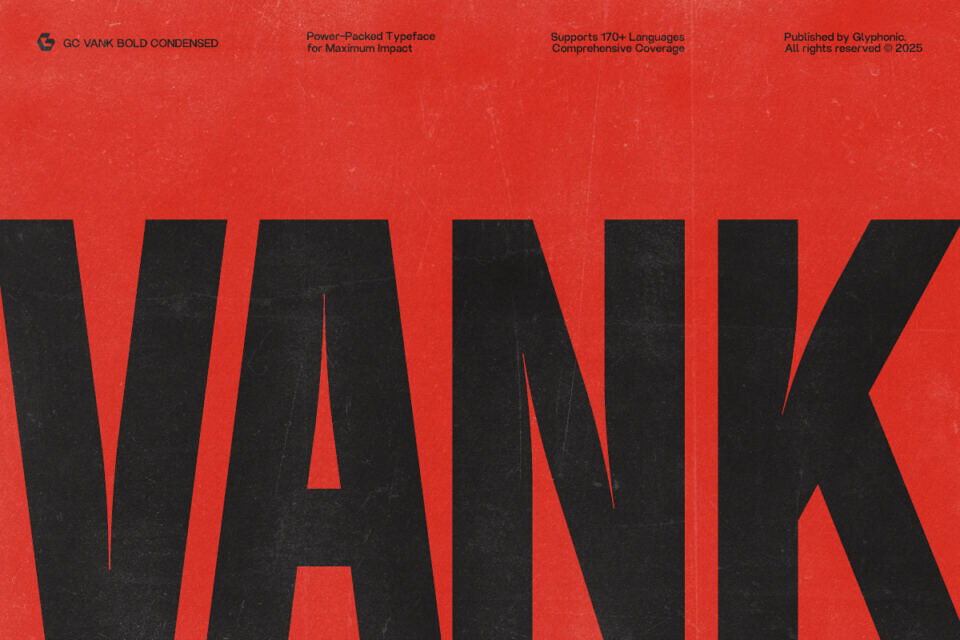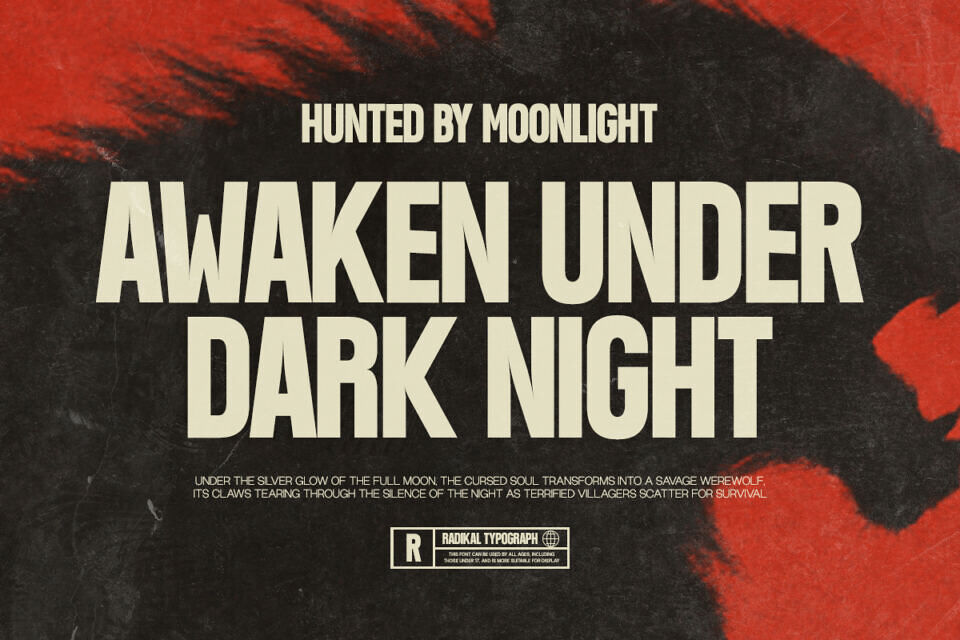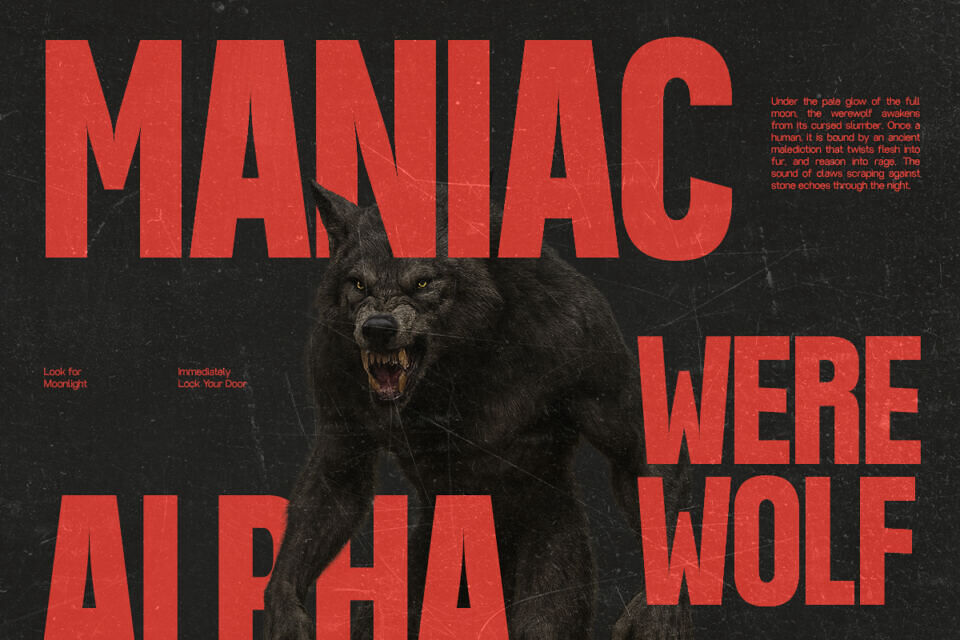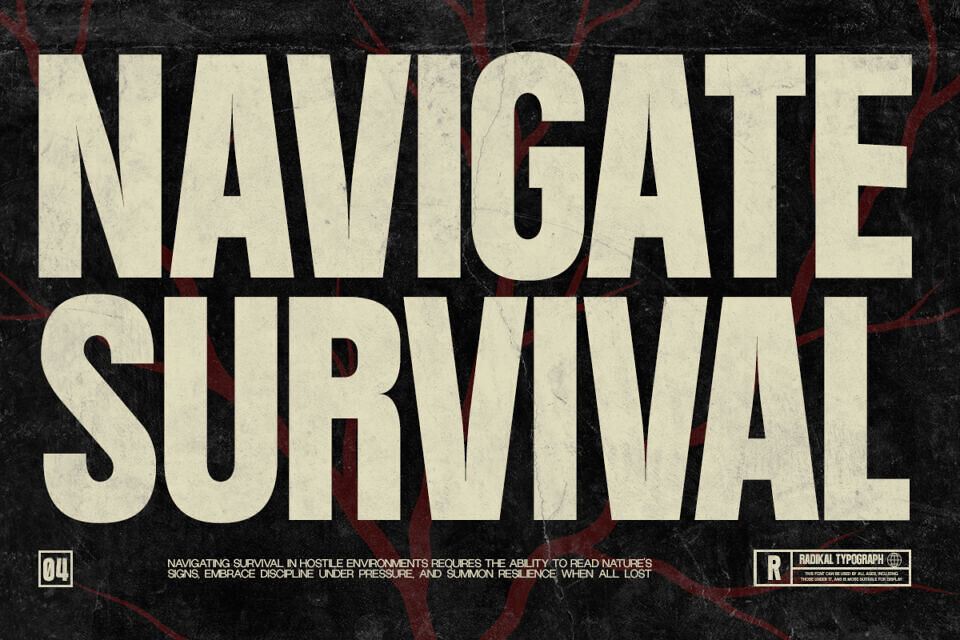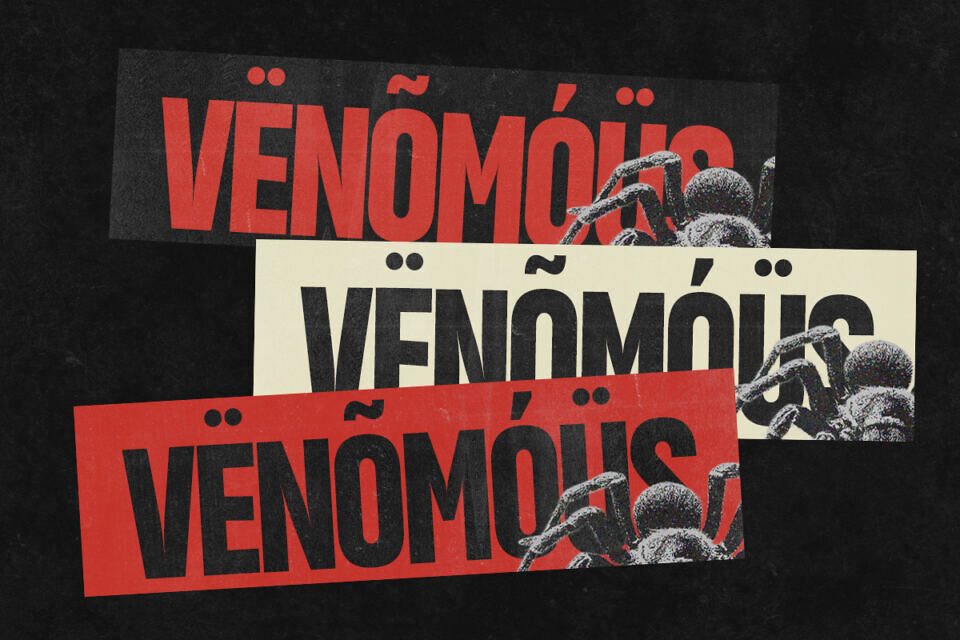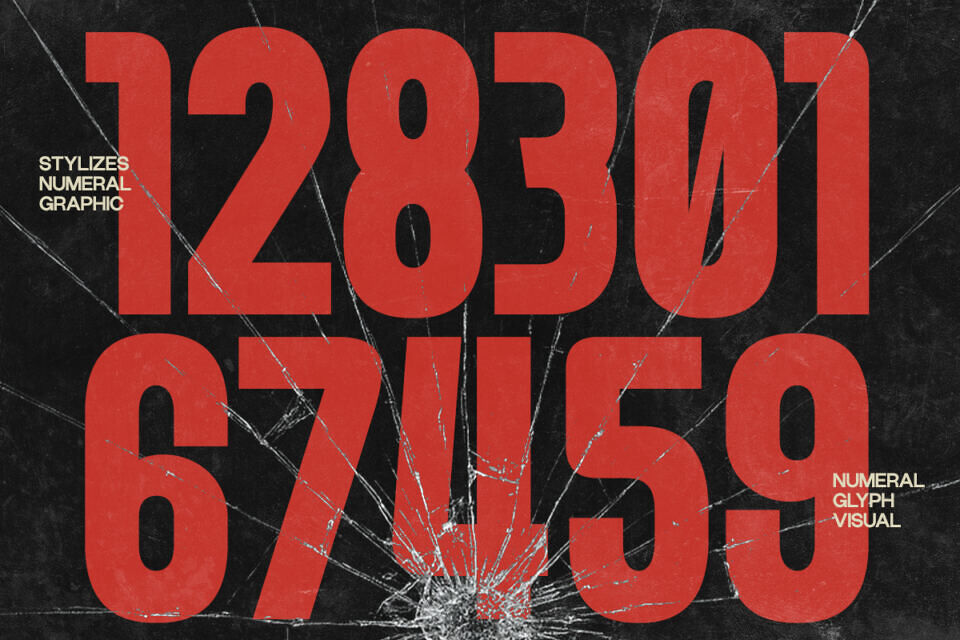
GC Vank Font is a bold condensed sans serif typeface designed for maximum impact and modern versatility. With its strong weight, clean lines, and confident style, it delivers striking typography suitable for both print and digital projects.
Perfect for branding, packaging, posters, sports graphics, and powerful headlines, GC Vank balances strength with elegance. Its precise detailing and balanced proportions make it adaptable across various layouts, from sleek interfaces to bold titles.